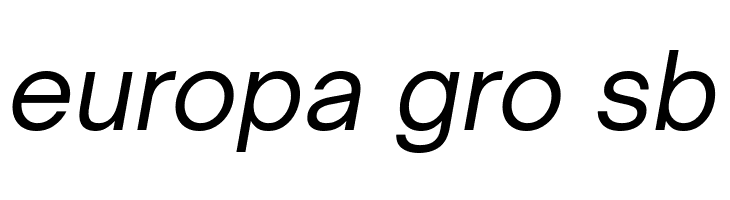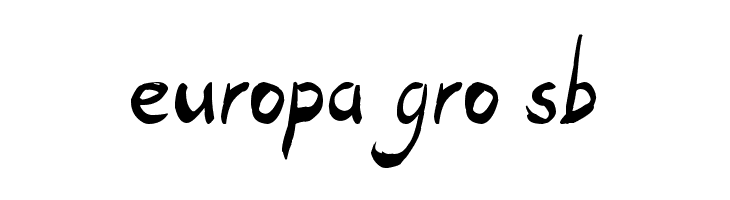
A lively and expressive script font with a handwritten feel.
A bold, expressive handwritten font with a dynamic and artistic style.
A bold, italicized font with strong, thick strokes and a modern style.
A bold, modern sans-serif font with clean lines and excellent readability.
A bold, italic, sans-serif font with a modern and dynamic style.
A bold, modern typeface with clean lines and strong geometric shapes.
A bold, italic font with a dynamic and modern style.
A modern, italicized font with clean lines and consistent stroke width.
A modern, light sans-serif font with clean lines and excellent readability.